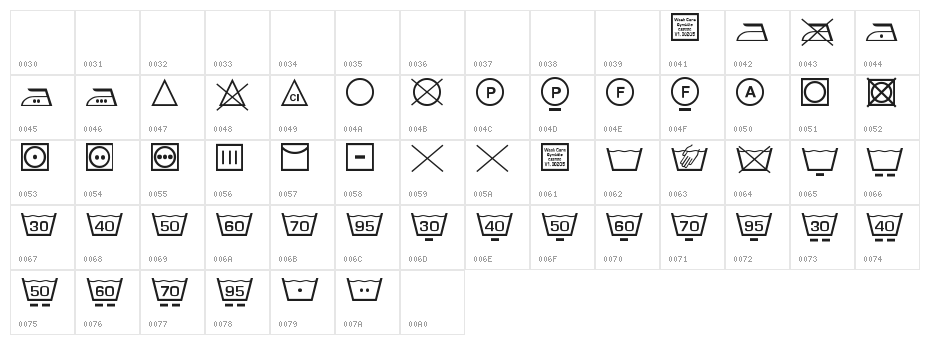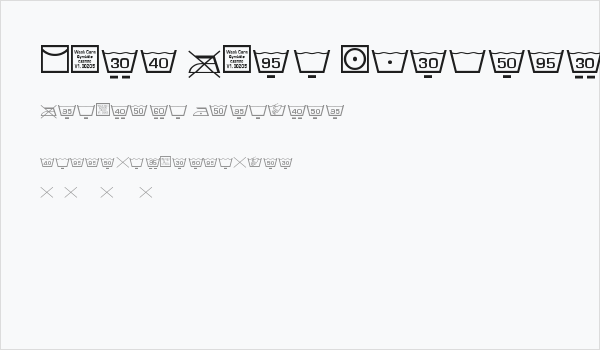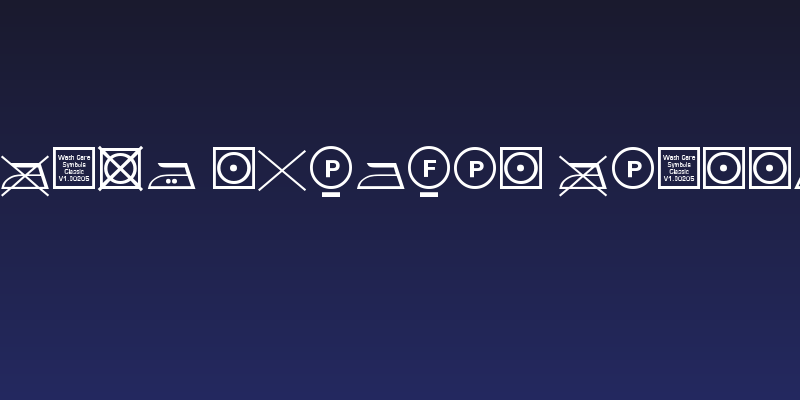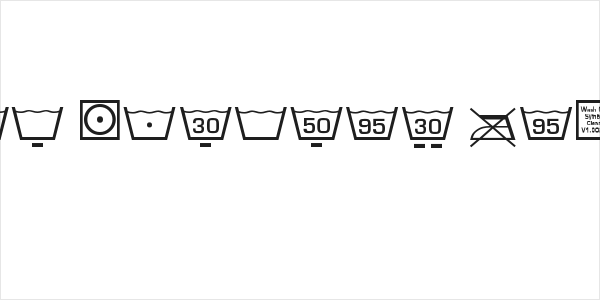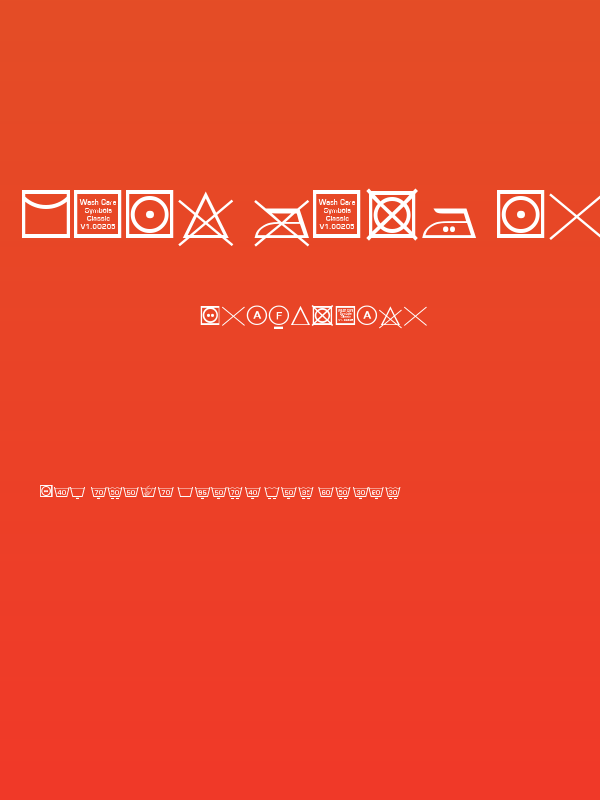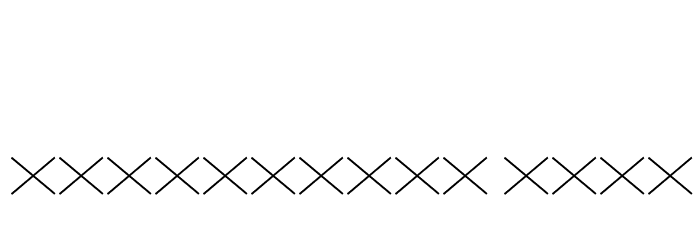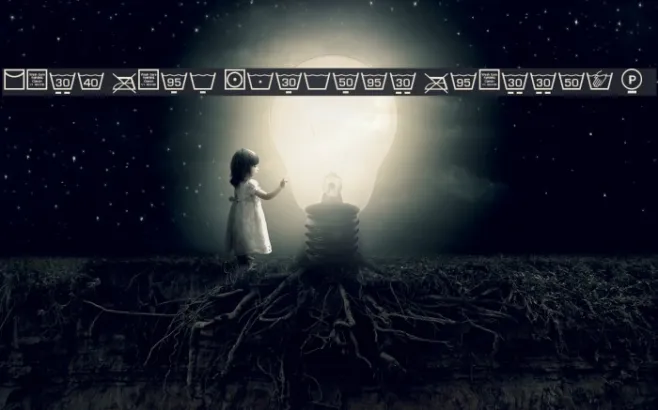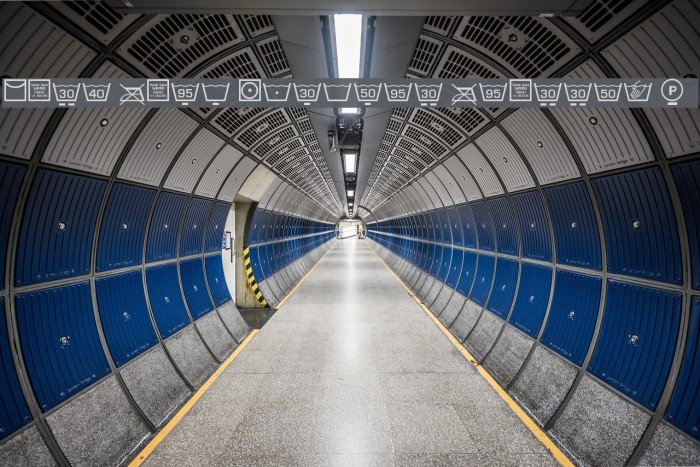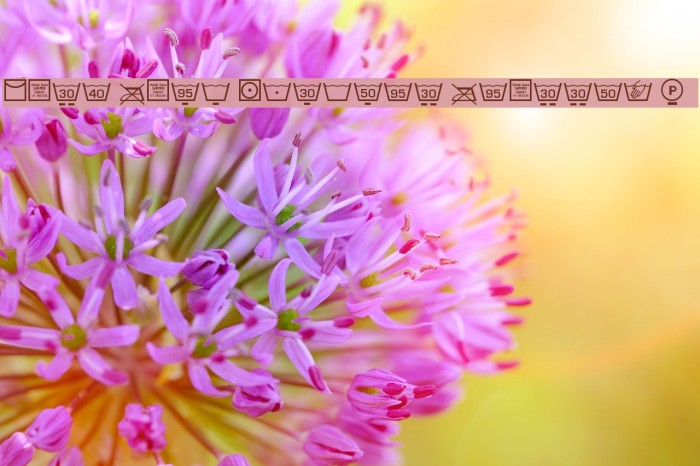
Wash Care Symbols Classic M54 Font
Wash Care Symbols Classic M54 Description
A collection of wash care symbols rendered in a clean, geometric, and highly legible style, featuring consistent line weights and minimal decorative elements for clear communication of laundry instructions.
| Overall Style | Functional, Modern, Minimalist |
| Use Case | Instructional icons, Labels, Manuals |
| Proposed Projects | Clothing labels, instruction manuals, textile packaging, laundry guides, infographics. |